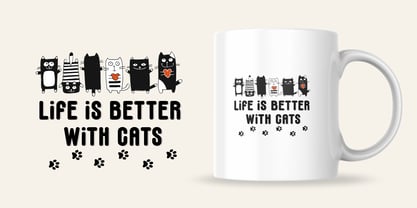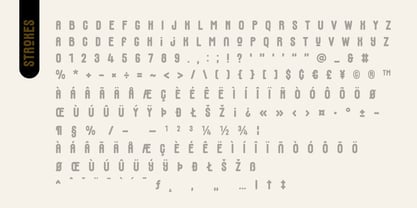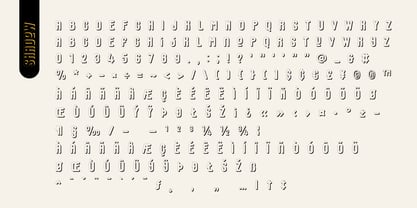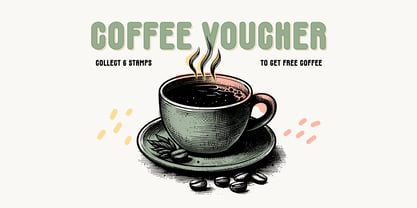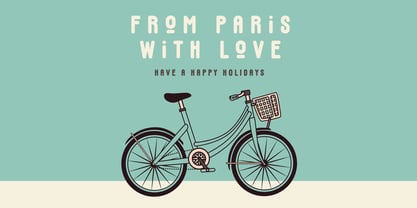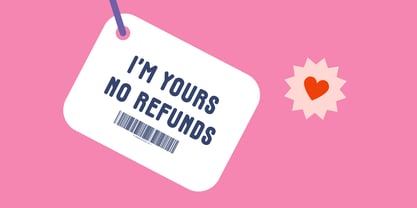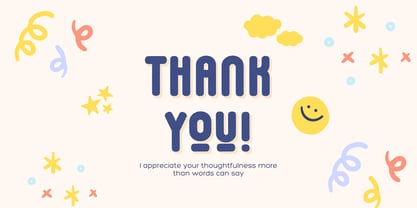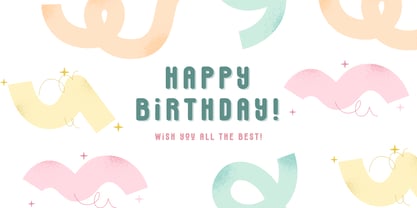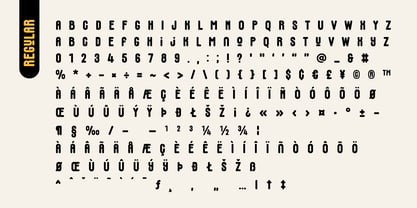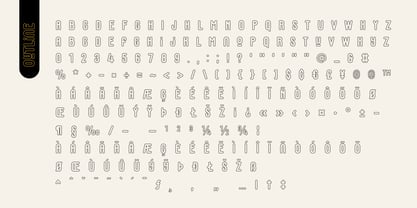
Fox Softie
Fox Softie – 4 Fun & Playful Font Styles
Fox Softie is a bold, rounded display font family designed to bring a friendly and cheerful touch to your creative projects. With its smooth curves and soft edges, this typeface is perfect for playful, casual, and eye-catching designs. The family includes 4 versatile styles – Regular, Strokes, Outline, and Shadow – giving you endless possibilities to mix and match for dynamic typography.
Whether you’re designing for posters, children’s books, packaging, stickers, social media posts, or branding projects, Fox Softie will instantly make your text pop with personality. Each style works beautifully on its own or layered together for unique effects.